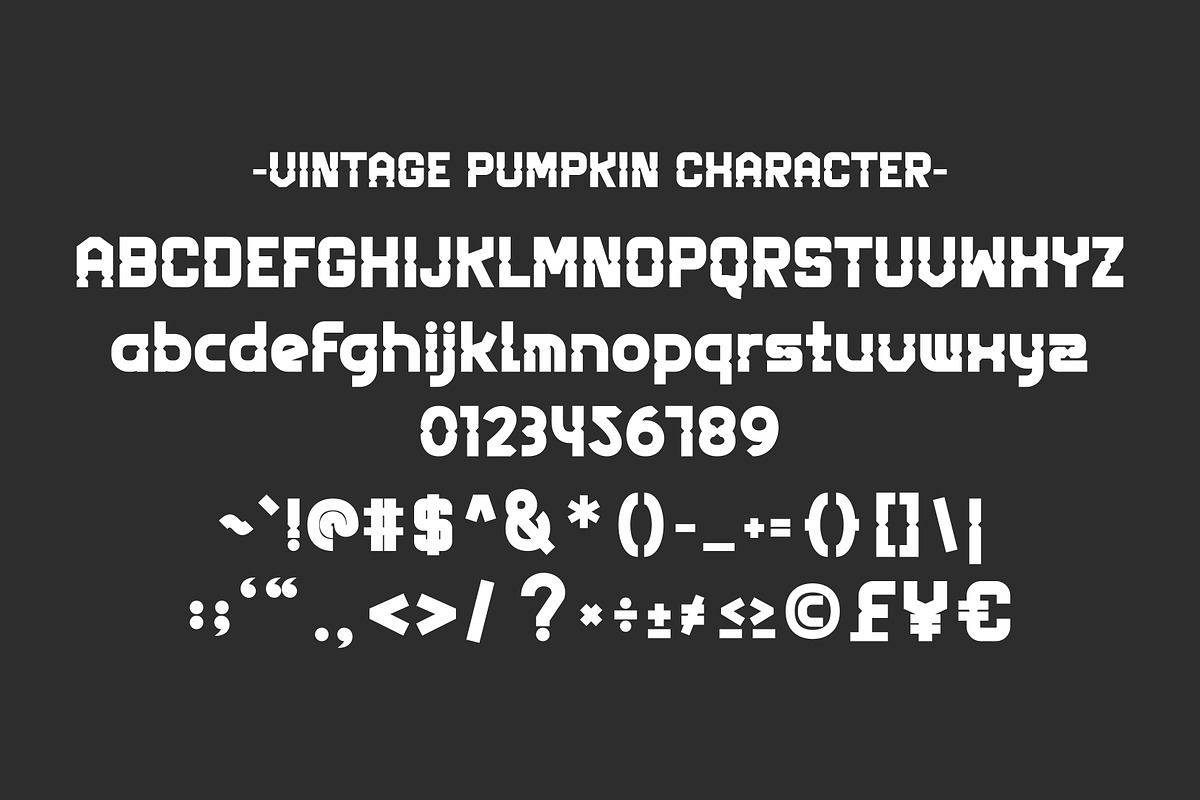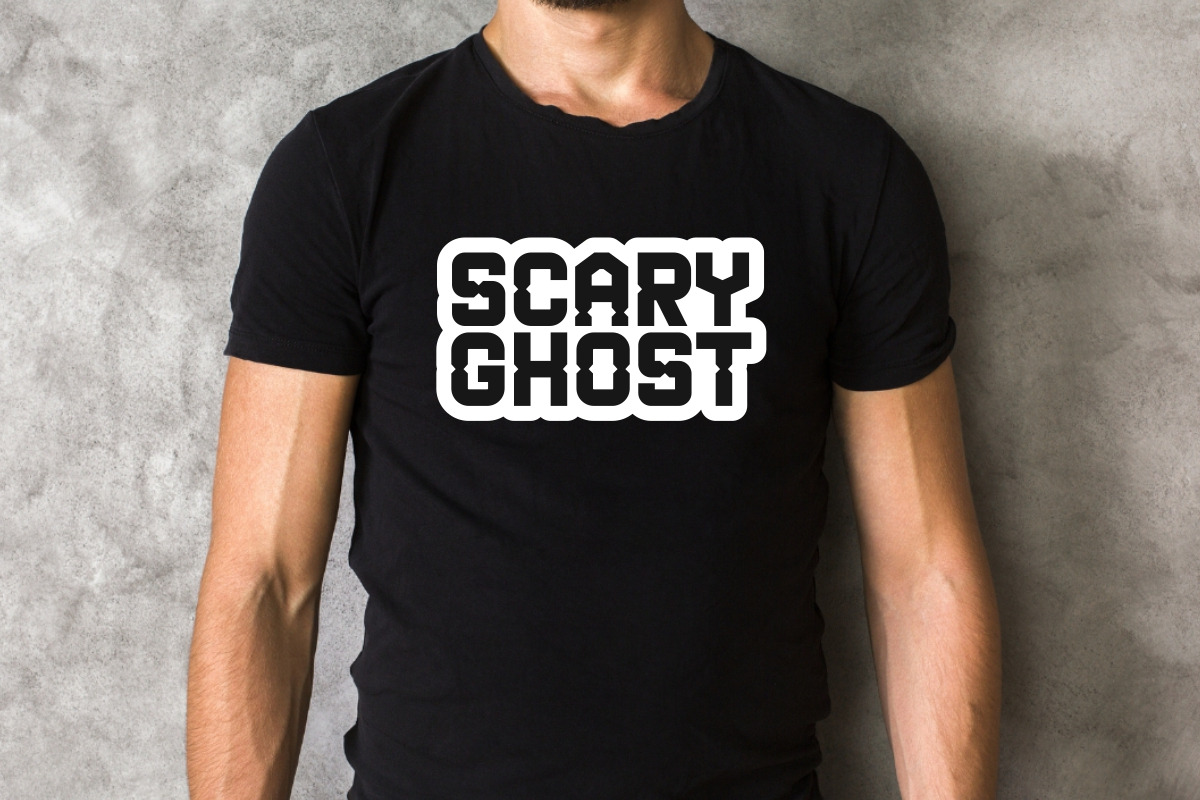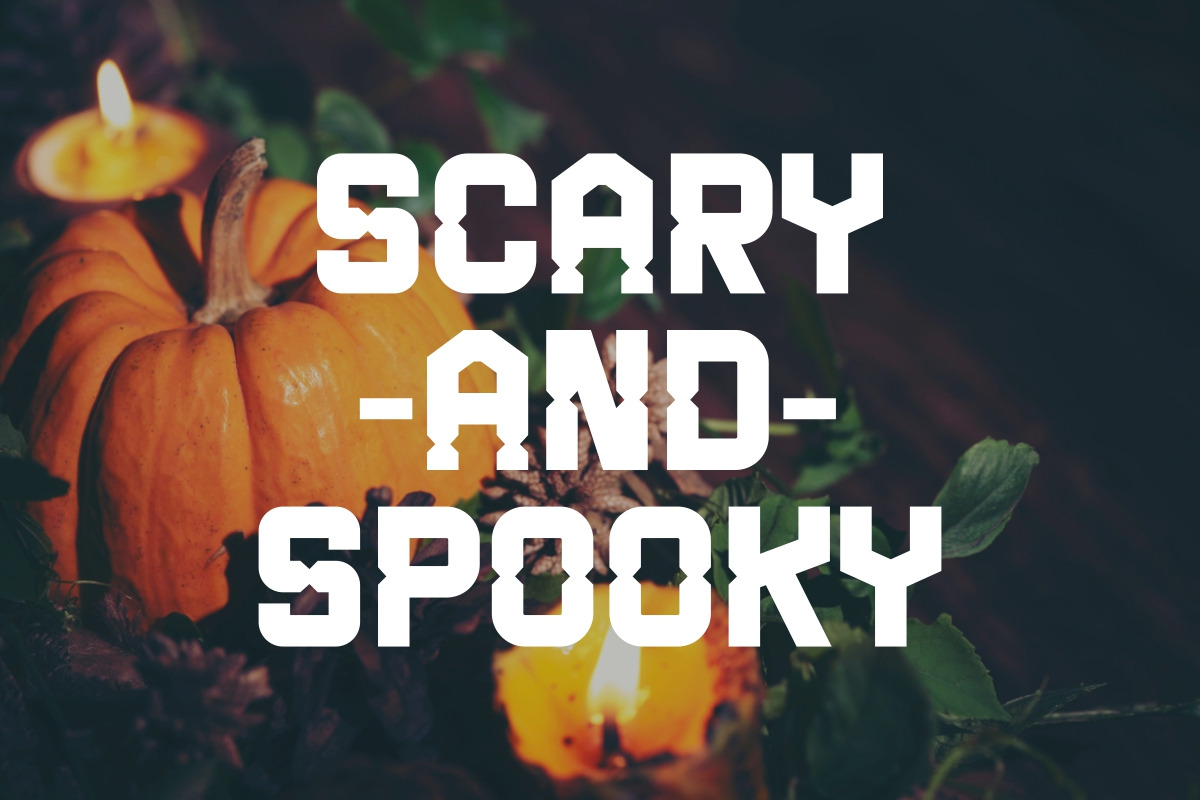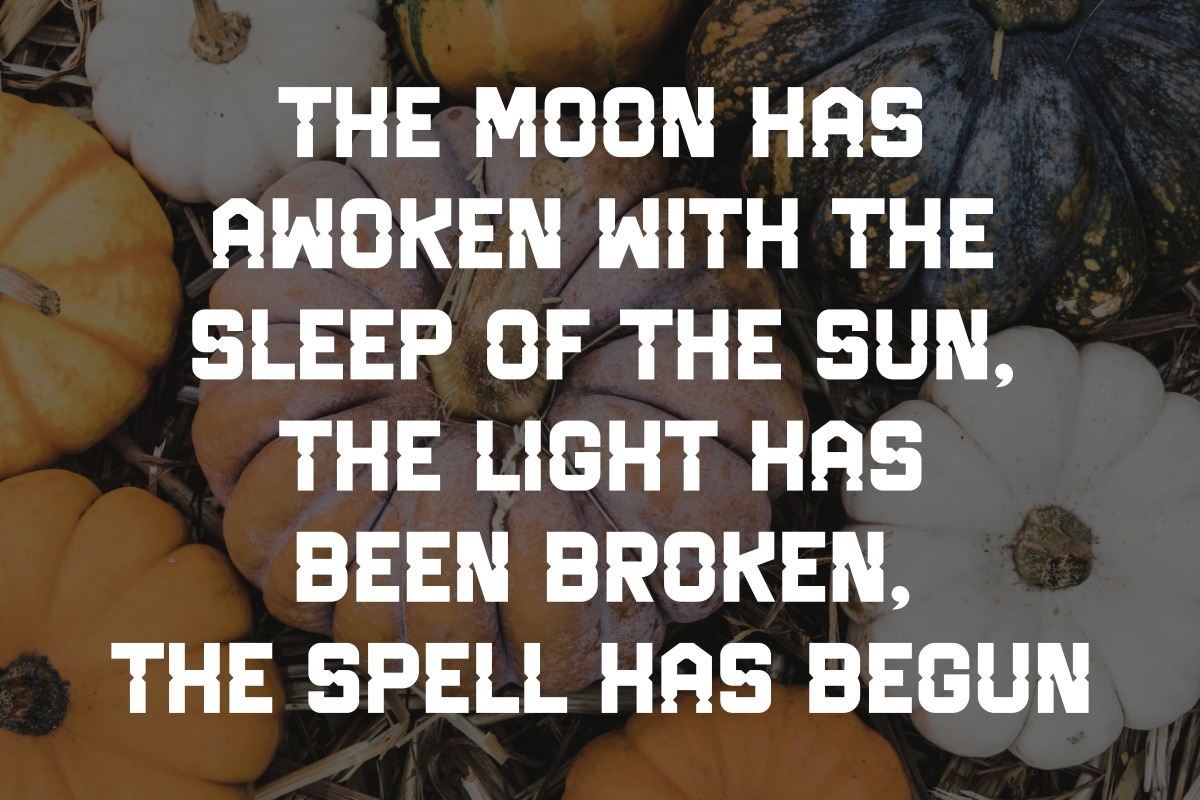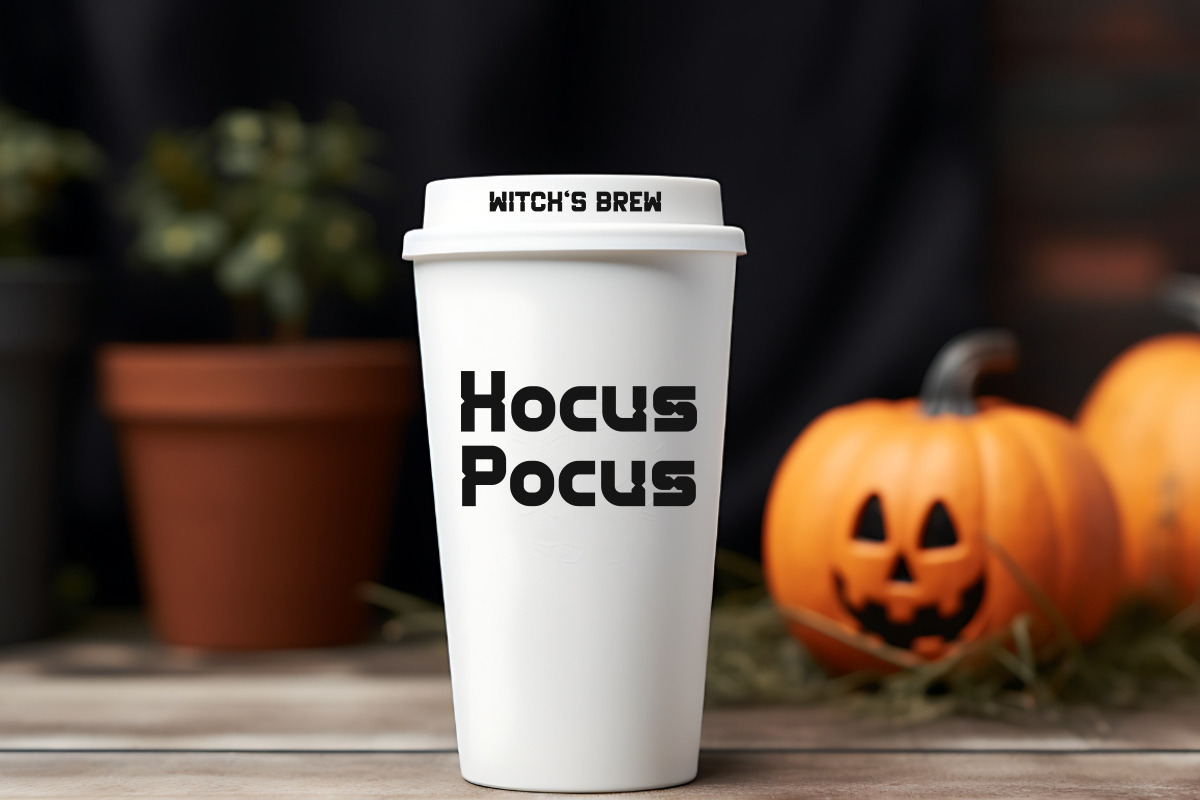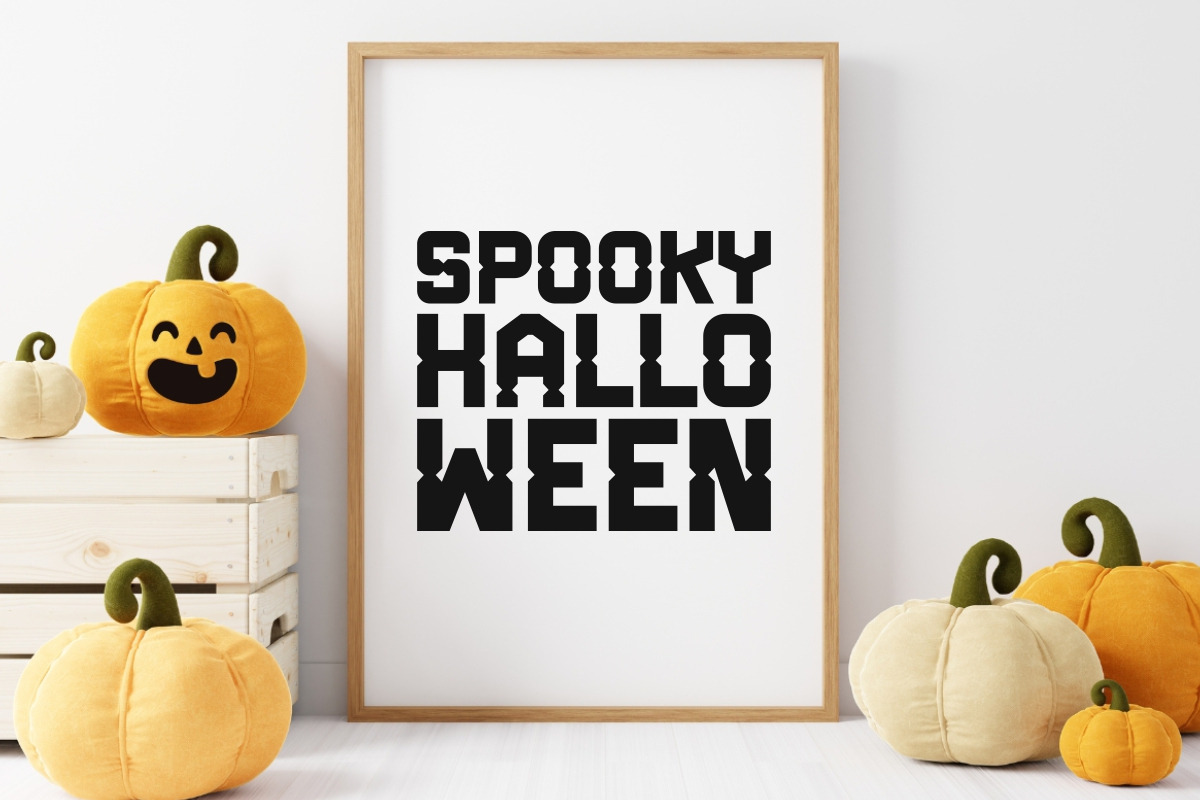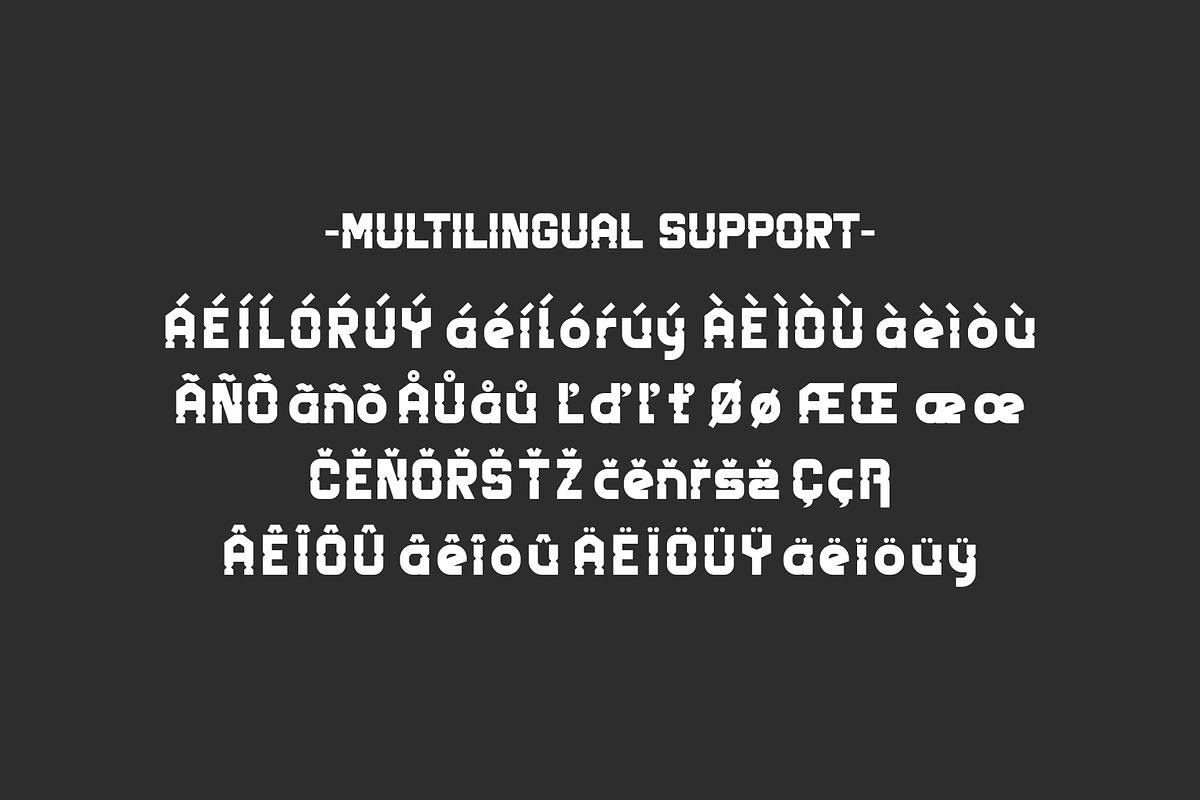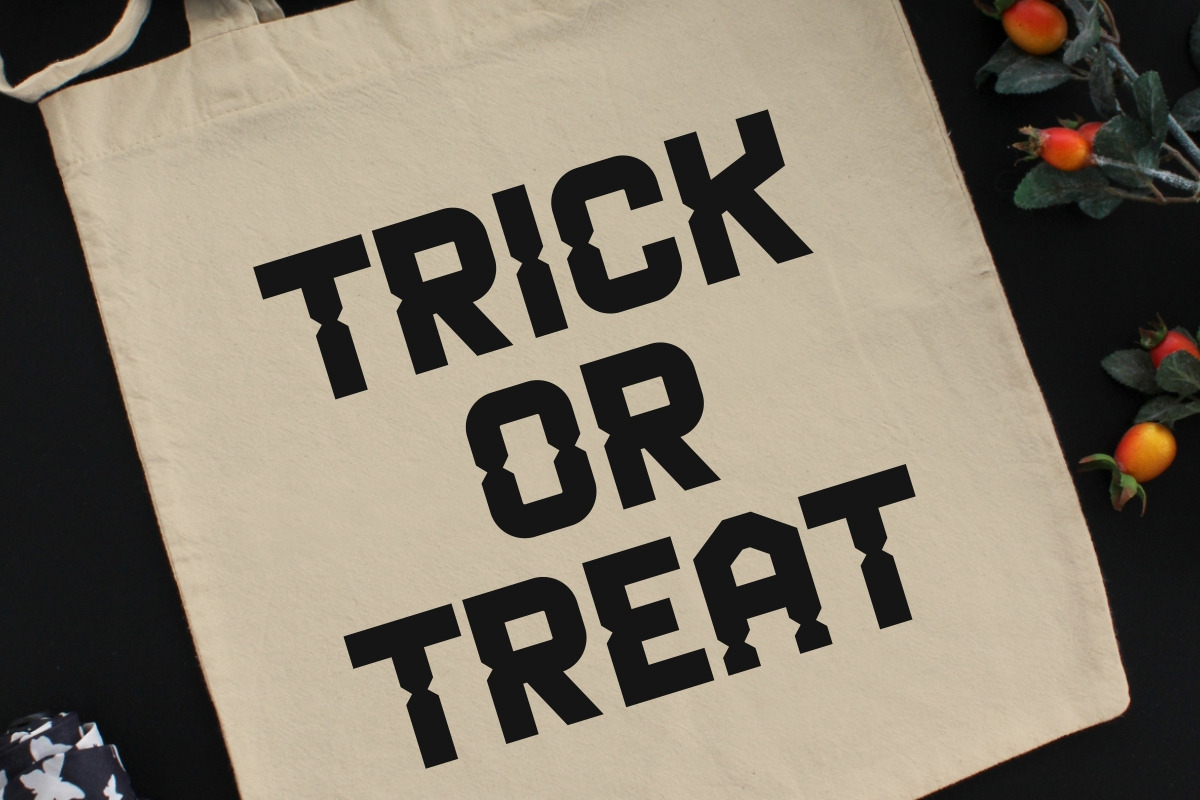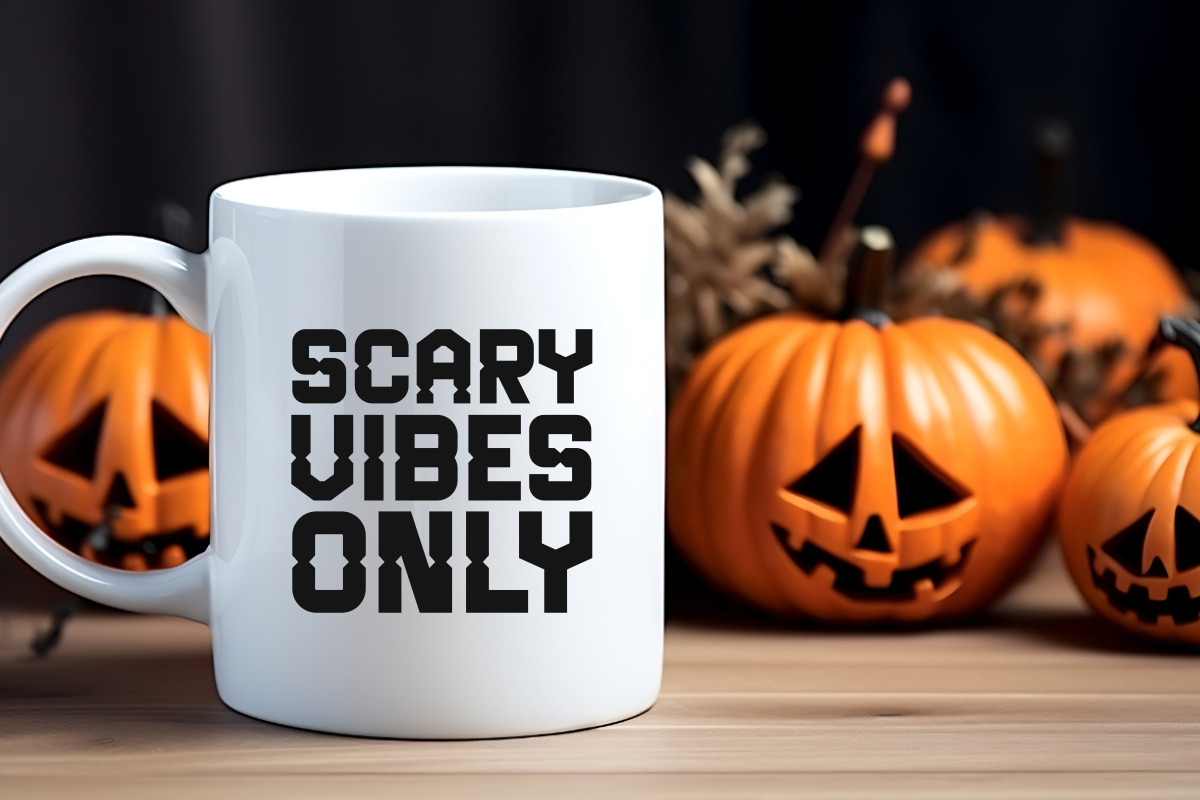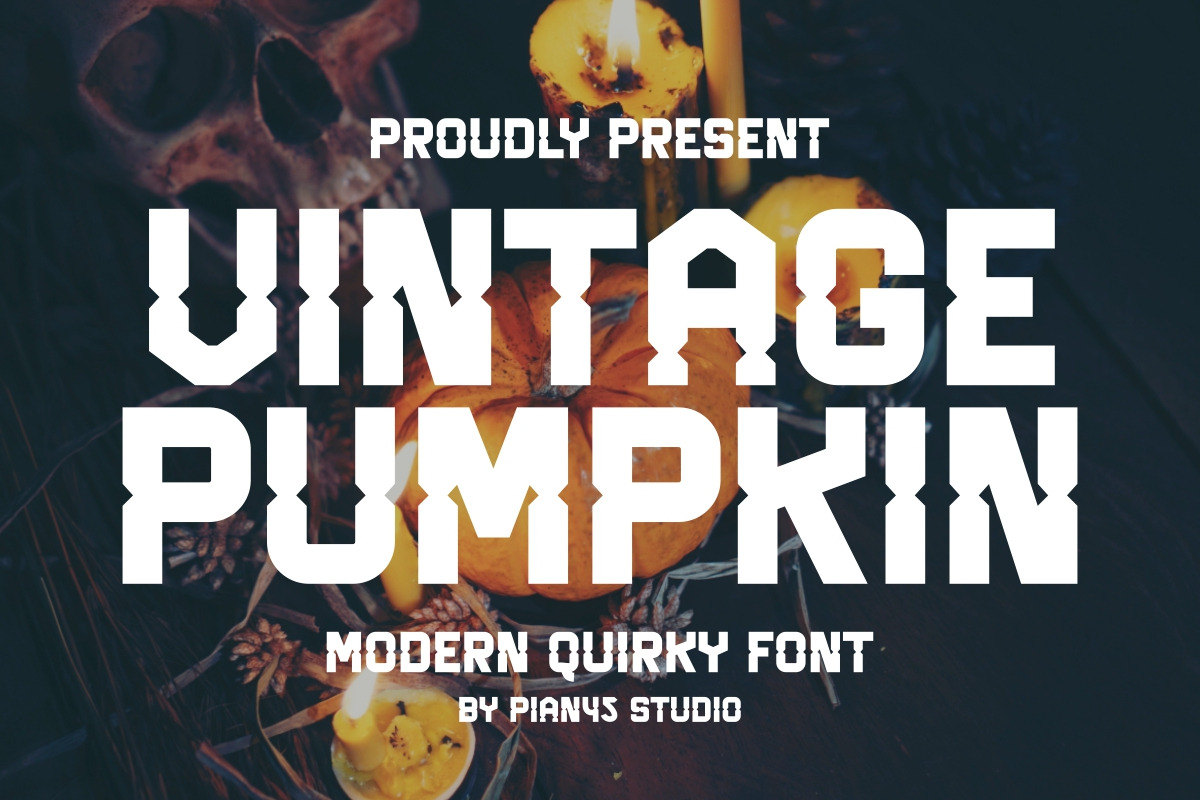
Vintage Pumpkin - Modern Quirky Font
Vintage Pumpkin is a modern quirky and luxurious sans serif typeface with a spooky Halloween theme. This unique font combines a elegance stylish and playful decorative style that make your design stand out. Perfect for quotes, backgrounds, posters, t-shirts, mugs, tumblers, tote bags, frames and wall arts.